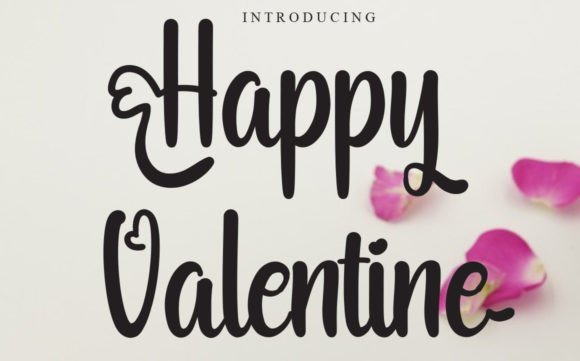
Love at First Sight: Discovering the Perfect Font
Have you ever stumbled upon a font that instantly captures the essence of your creative vision? For many designers, this moment is like finding a long-lost treasure. It’s the spark that ignites a new project, a fresh idea, or a romantic gesture. This magical moment happened to us when we discovered the Happy Valentine Font – a delicate, handwritten beauty that whispers sweet nothings to the heart.
This lovely font is designed for those special occasions when love is in the air – think wedding invitations, Valentine’s Day decor, or social media posts that scream “I love you!” The Happy Valentine Font is more than just a pretty face; it’s a valuable tool for designers who want to add a touch of whimsy and romance to their projects.
Happy Valentine Font Key Features
- Font Family: Happy Valentine
- Character Set: Latin, Cyrillic, Greek, and Extended Latin characters
- Unique Characteristics: Includes Valentine’s Day-themed icons and symbols, such as hearts, roses, and Cupid
Happy Valentine Font Review
Overall, I think Happy Valentine Font is a cute, playful font that can be used for romantic or whimsical projects. Here are some things that stand out:
- ✨ The font has a clear, legible design that’s easy to read, even at smaller sizes.
- ✨ The font’s curved lines and heart-shaped details give it a sweet, endearing quality that’s perfect for Valentine’s Day or other love-themed projects.
- ✨ The font comes in a variety of weights and styles, which makes it versatile and easy to use in different contexts.
- ⚠️ The font’s design can feel a bit too cutesy or over-the-top for some projects, which may not be suitable for all audiences.
- ⚠️ The font’s curves and lines can be difficult to customize or modify, which may limit its use in certain design contexts.
- ⚠️ The font may not be the best choice for professional or formal projects, as its playful design may not be taken seriously.
Overall, I think Happy Valentine Font is a fun, lighthearted font that can add a touch of whimsy to your projects. While it may not be the best choice for all projects, it’s perfect for romantic, playful, or family-friendly designs.
The Happy Valentine Font is perfect for creating romantic and playful designs for Valentine’s Day, weddings, and anniversaries. Use it for invitations, greeting cards, and social media posts to add a touch of love and affection.
Tips for Getting the Most Out of Happy Valentine Font
To get the most out of Happy Valentine Font, use it in combination with other playful and romantic elements, such as hearts, flowers, and cupids. Experiment with different font sizes, colors, and arrangements to create unique and eye-catching designs.
Alternative Font Options for Valentine’s Day Designs
Great Vibes Font is a modern, elegant script font that is perfect for creating a romantic atmosphere. It has a flowing, cursive feel that makes it ideal for wedding invitations, love letters, and other Valentine’s Day designs. Compared to Happy Valentine Font, Great Vibes Font has a more sophisticated and refined look.
Carolyna Pro Font is a luxurious, high-end script font that is ideal for creating a glamorous and sophisticated look. It has a classic, elegant feel that makes it perfect for Valentine’s Day designs that need a touch of luxury. Unlike Happy Valentine Font, Carolyna Pro Font has a more refined and polished look.
Alex Brush Font is a handwritten, script font that has a personal and intimate feel. It is perfect for creating a romantic and emotional atmosphere, making it ideal for Valentine’s Day designs that need a touch of warmth and personality. Compared to Happy Valentine Font, Alex Brush Font has a more casual and relaxed look.